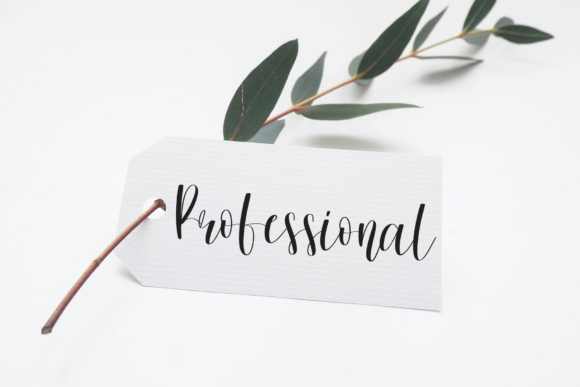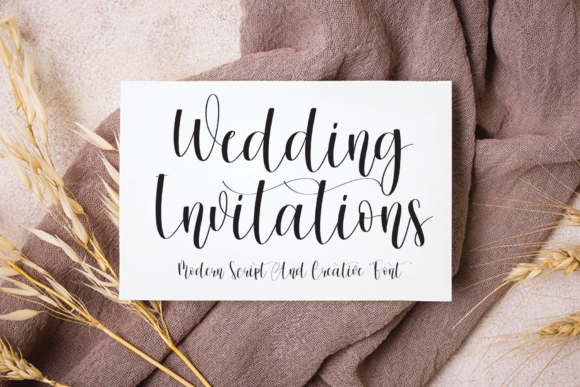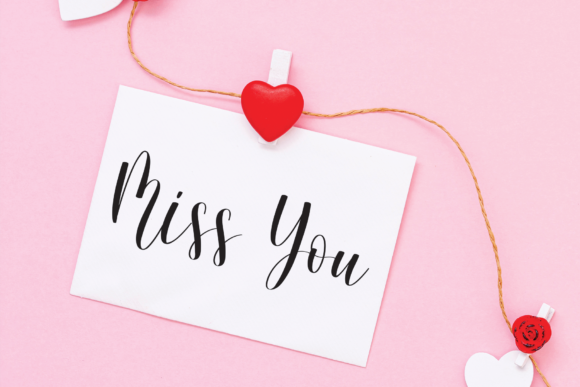
Christmas Melody Font
About Christmas Melody Font
Christmas Melody is an organic handwritten font, perfect for invitations, product packaging, quotes, product design, crafter, labels, photography, watermarks, logos & branding.